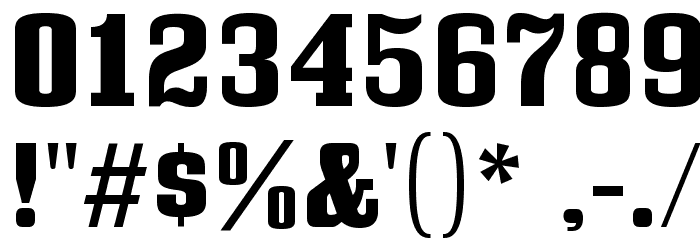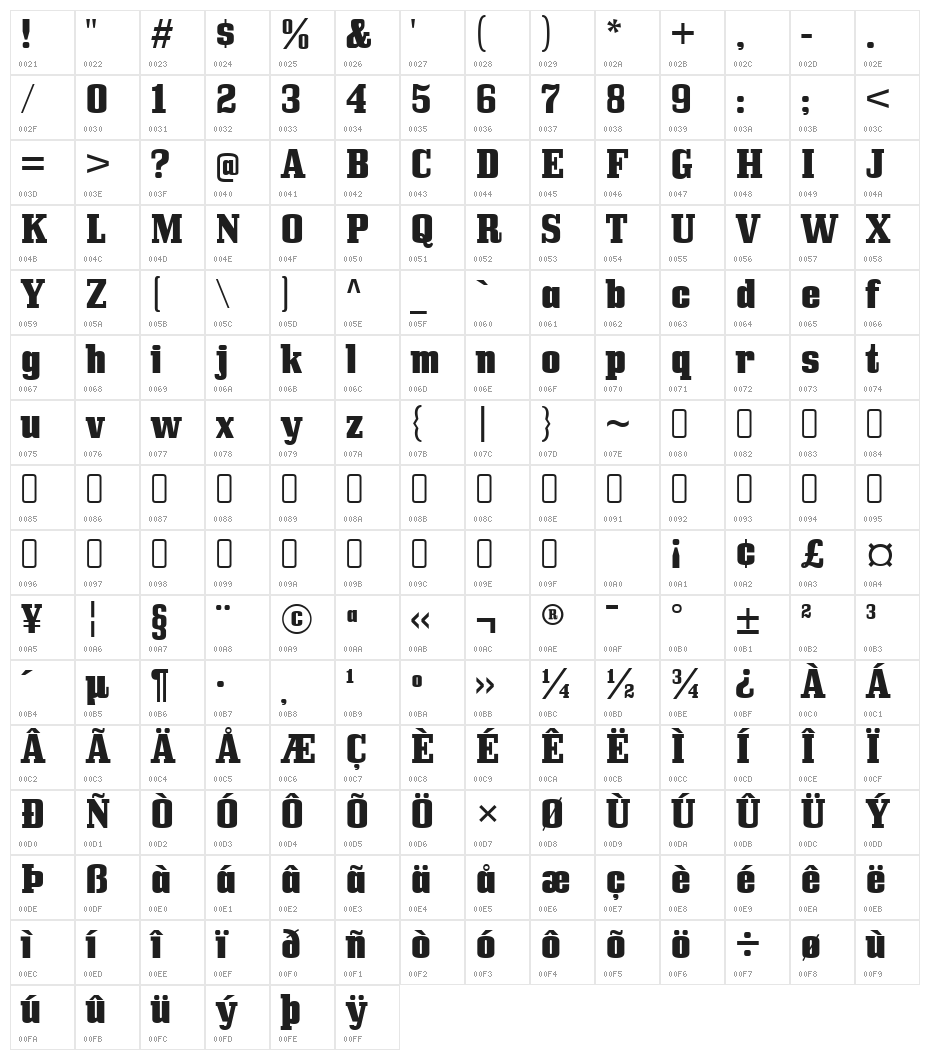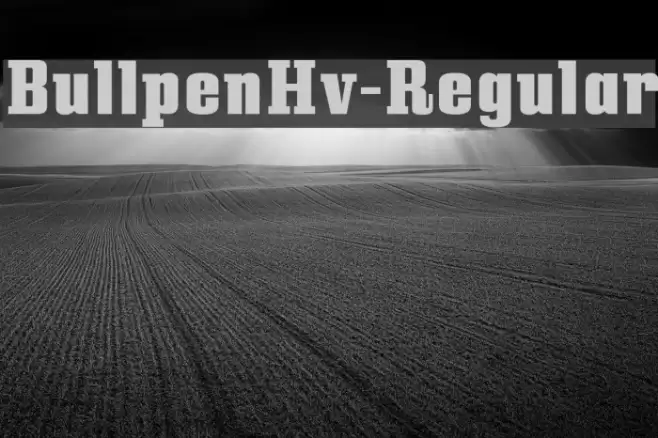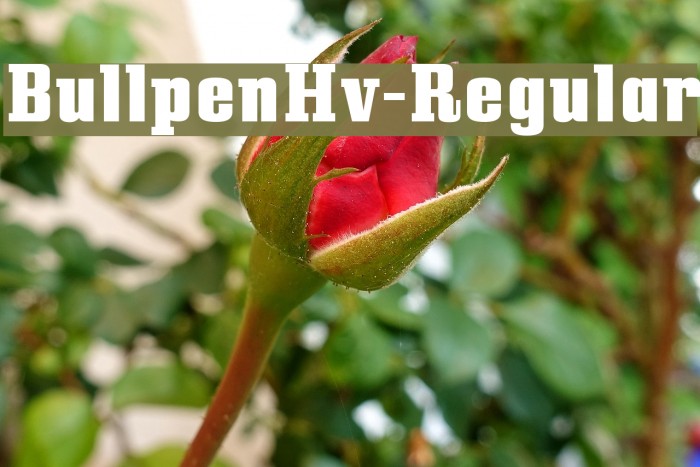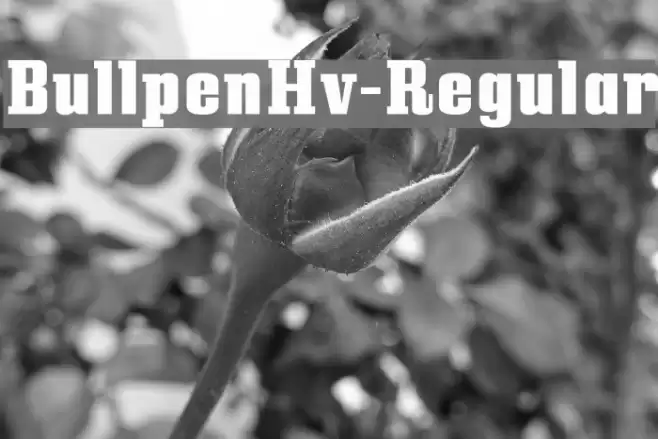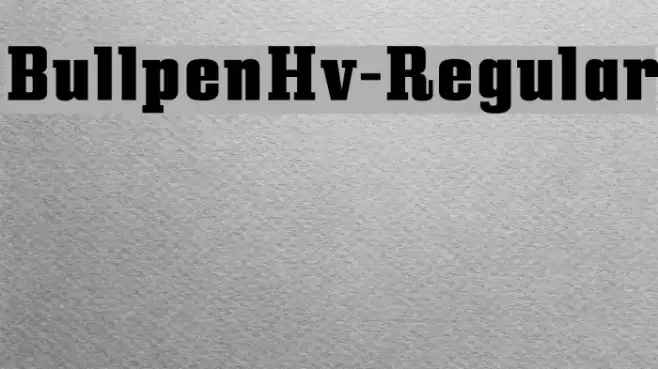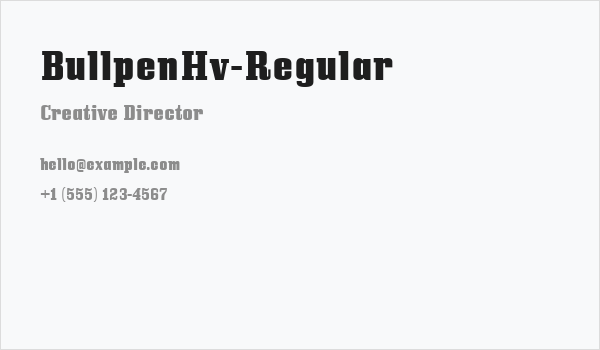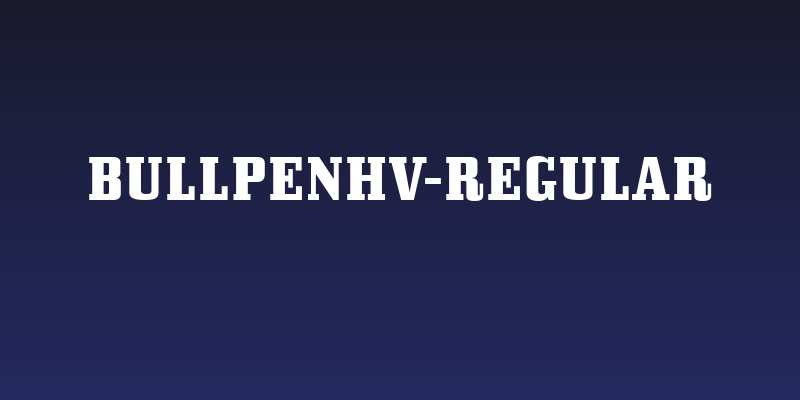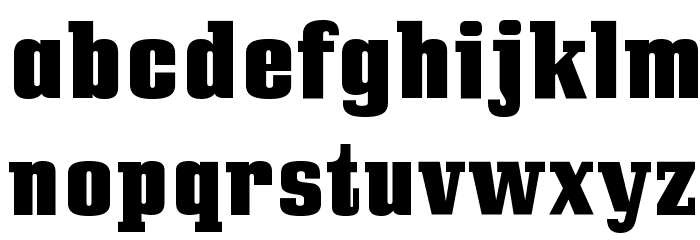
BullpenHv-Regular Font
BullpenHv-Regular Description
This font exhibits a bold and robust slab serif style, characterized by thick, block-like serifs and strong vertical strokes. The uppercase letters are uniform in height, creating a sense of stability and strength, while the lowercase letters maintain a consistent x-height, ensuring readability. The numerals are equally bold, with a consistent width that complements the overall design. Special characters are integrated seamlessly, maintaining the font's cohesive appearance. The font's boldness and clarity make it suitable for impactful headlines and titles.
Overall StyleClassic
Proposed ProjectsIdeal for projects requiring a strong visual impact, such as posters, headlines, branding, and signage.